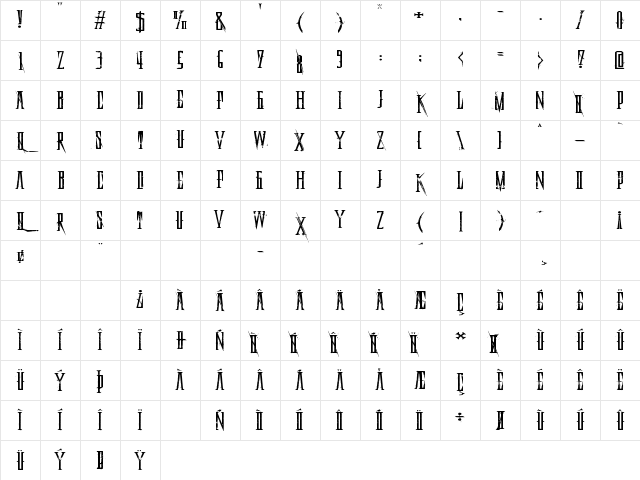
Complete Deadly Black Chain Extended glyph index. Displaying only characters natively supported by Deadly Black Chain Extended font.
Deadly Black Chain is a composed and adaptable typeface that performs quietly and consistently across a wide range of design contexts.